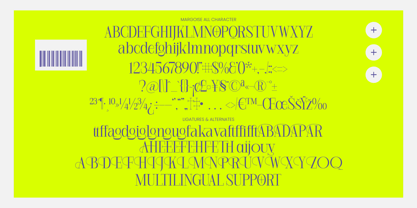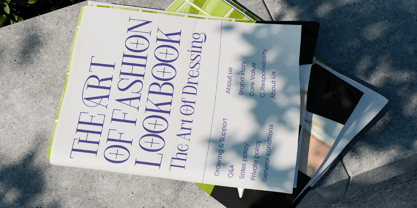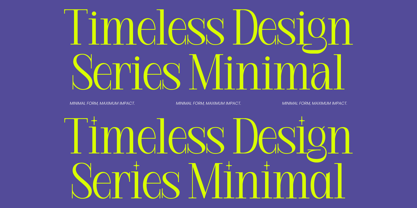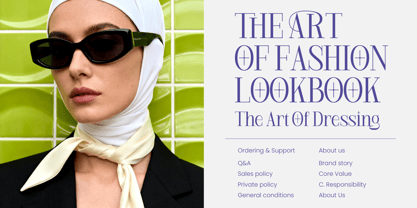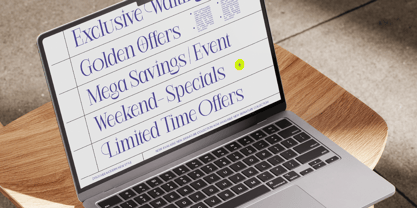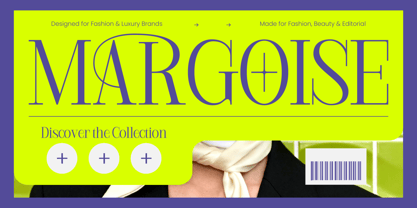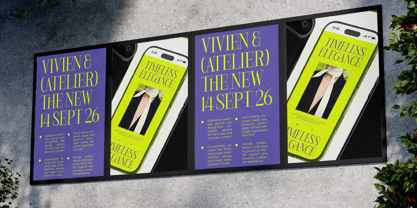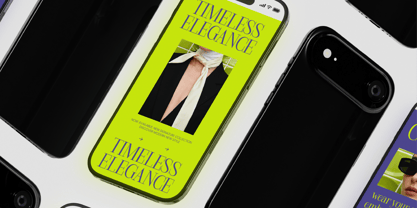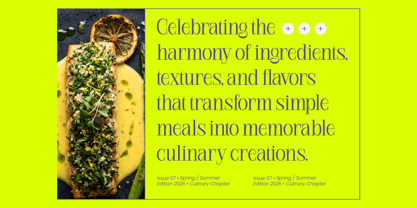
Margoise
by Timelesstype Studio
The Margoise Font Family was designed by Heru Utama Putra and published by Timelesstype Studio. Margoise contains 2 styles and family package options. More about this family
Margoise is a masterclass in modern elegance, blending sharp contrast with fluid movement to redefine the display serif landscape. This font captures the essence of contemporary luxury, making every word a curated piece of art.
Inspired by the high-octane world of avant-garde fashion and the structural beauty of archival typography, it carries a refined yet daring spirit. Its visual language reflects a world where classic sophistication meets the vibrant energy of neo-brutalist aesthetics.
With a distinct modern serif display character, it delivers a powerful branding impact through its high-contrast serif design. This is the ultimate luxury typography tool for creators seeking a high-end editorial font that commands attention.